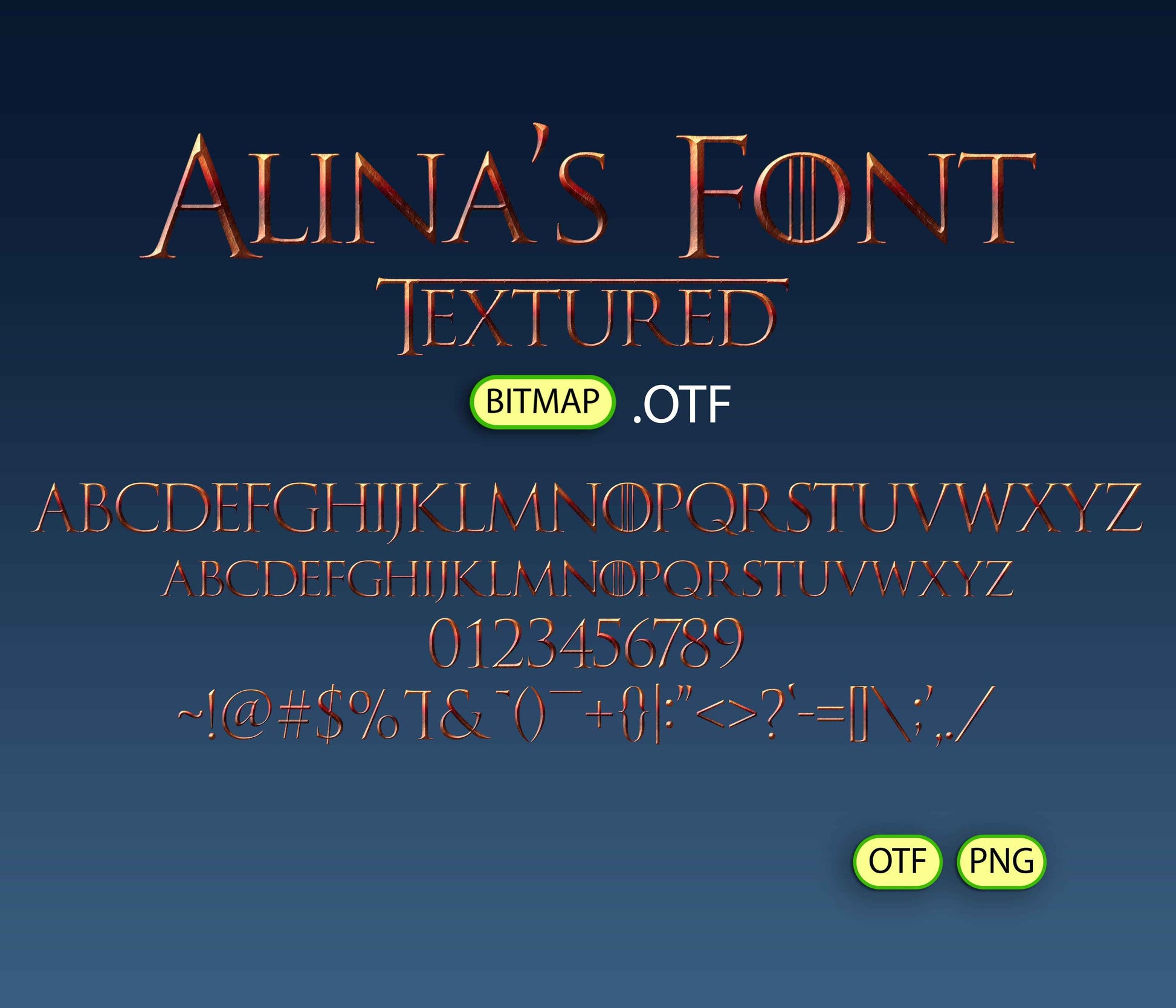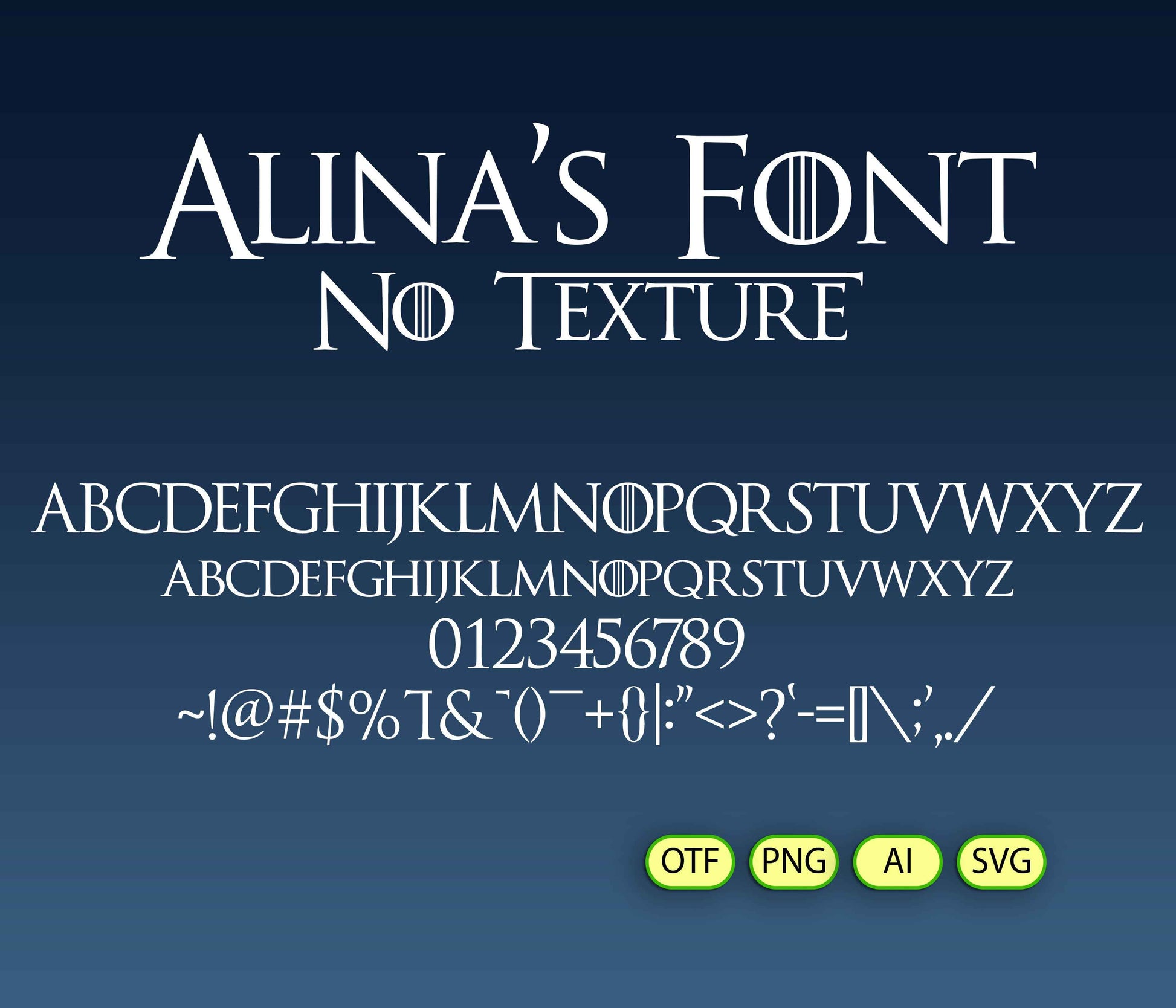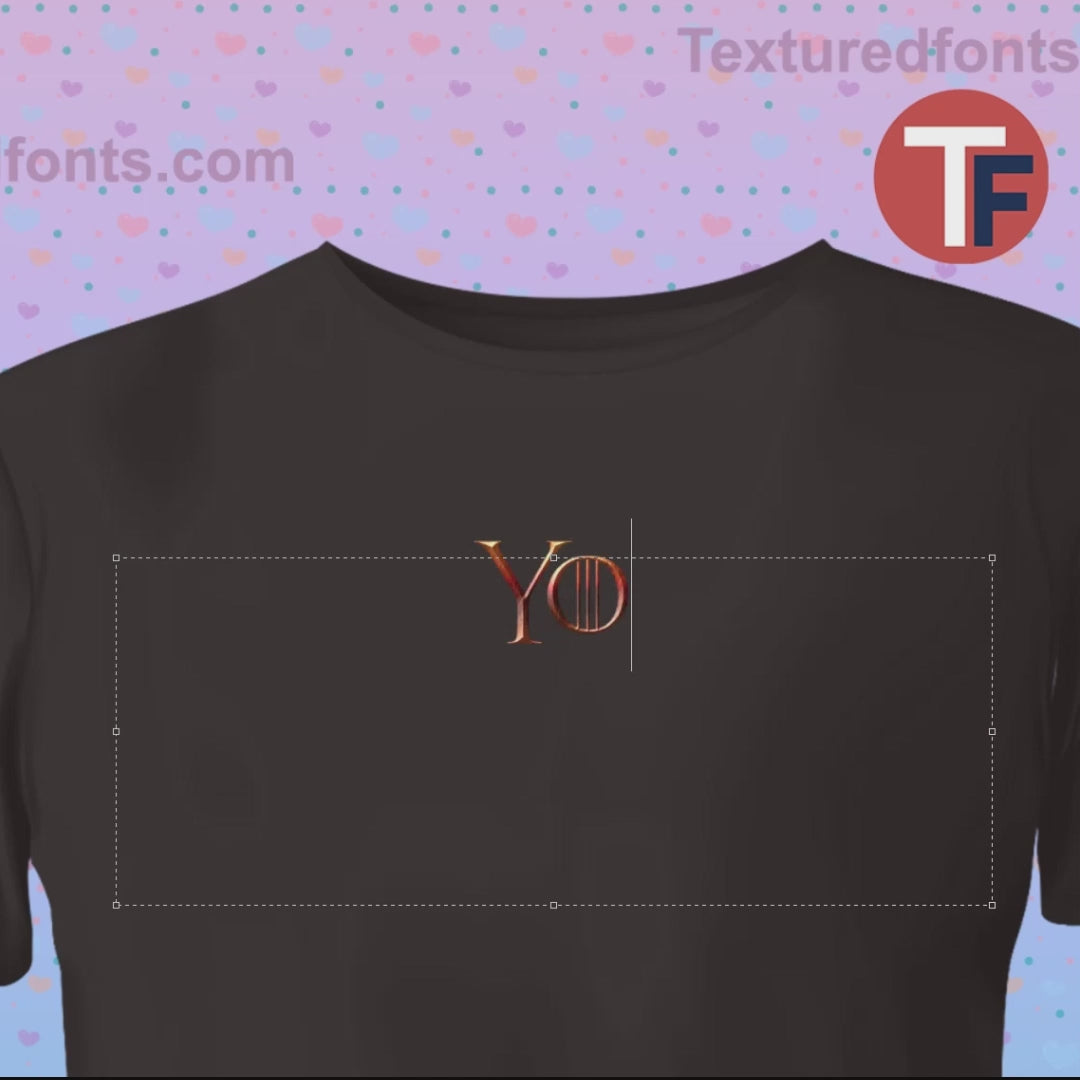
Westeros Font Textured
Conquer the Realms of Design with the Westeros Font
Embark on a journey through the epic landscapes of a legendary fantasy world with our Westeros font, crafted to echo the grandeur and drama of an iconic series. Perfect for fans, designers, and creators aiming to infuse their projects with the essence of the Seven Kingdoms, this font ensures your designs capture the power, intrigue, and boldness of the series.
Drawing inspiration from the harsh and majestic aesthetic of the show, this font features robust, sharp edges and a slightly weathered look, mirroring the medieval fantasy elements that the series is known for. The font includes a full character set—uppercase and lowercase letters, numbers, and special symbols—making it ideal for a wide range of uses:
- Event Promotions: Create compelling materials for themed parties, screenings, or fan conventions.
- Merchandising: Design striking apparel, posters, and collectibles that resonate with fans.
- Digital Media: Enhance blogs, fan sites, or online campaigns with strong, thematic titles.
- Personal Projects: Add a regal touch to custom gifts, DIY crafts, or even wedding invitations in a medieval style.
- Publishing: Use in publications, such as fan fiction or themed cookbooks, to lend an authentic medieval feel.
Our Westeros-inspired font is designed to be highly versatile and user-friendly, including both textured and non-textured variants to suit any project need. The non-textured version is especially important, ensuring compatibility with all types of software, including Canva. This accessibility allows users of all skill levels to easily integrate the font into their digital and print projects, enhancing flexibility and ease of use.
Our Westeros font not only pays tribute to the iconic series but also empowers you to bring its essence into your creative endeavors. With its distinctive style and adaptable functionality, this font allows you to narrate stories with the visual impact and thematic depth that fans would appreciate and newcomers would be intrigued by. Ready to let your designs ascend to the Iron Throne? This font is your key to unlocking a world of imaginative possibilities.